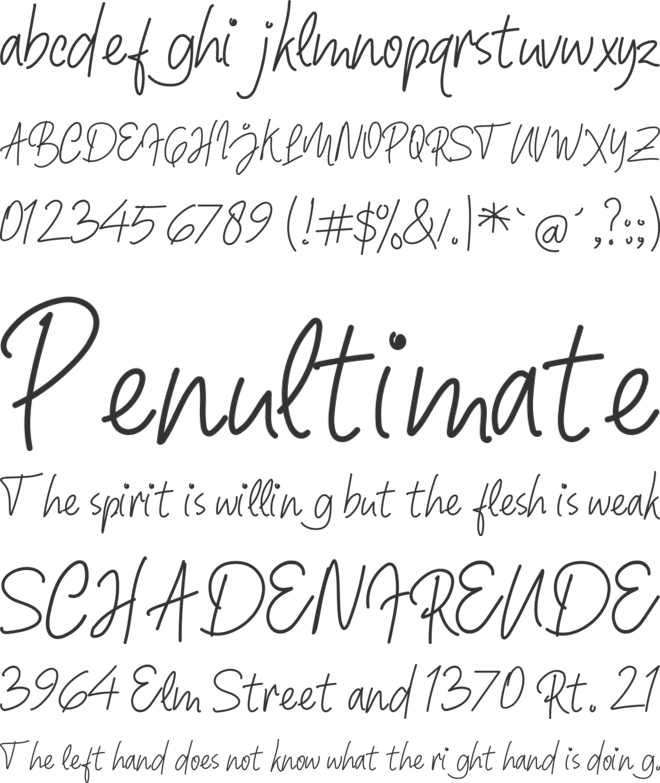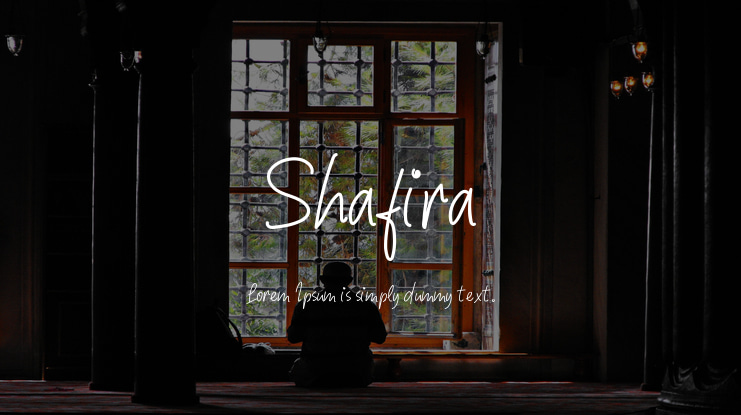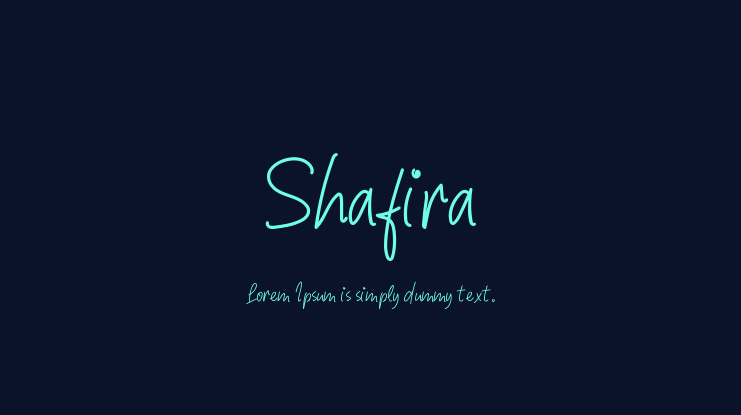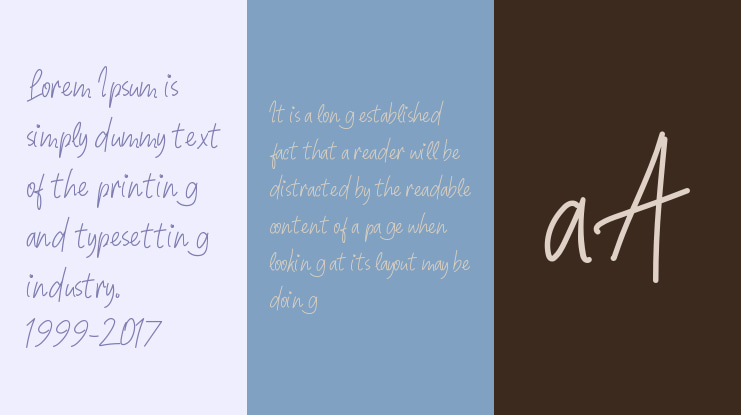
Shafira Font
Introducing Shafira handwritten font,
unique hand-drawn script font, crafted using a digital pen. This font has been carefully designed to re-create natural handwritten text, Shafira lends itself perfectly to handwritten quotes, signature-style logos, stylish branding projects, and hand-crafted product & stationery designs.